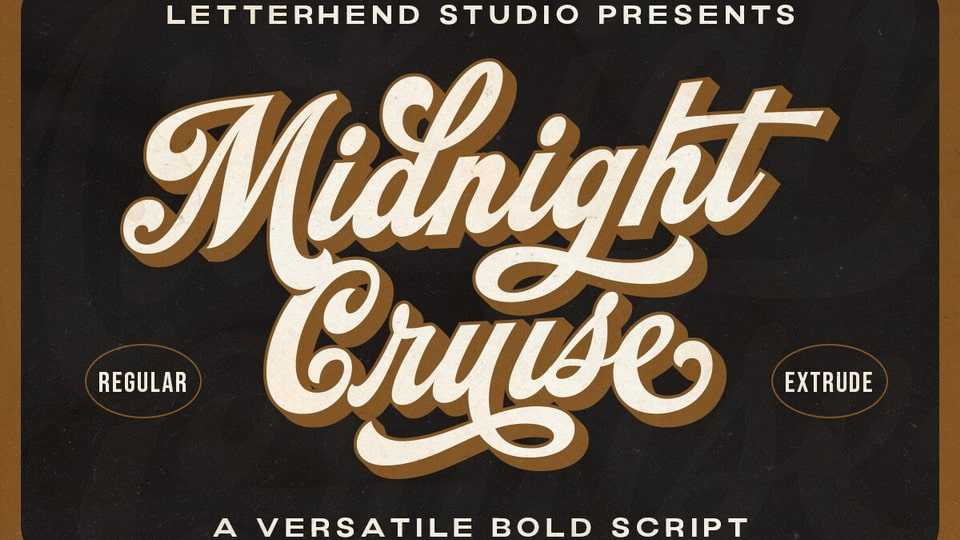
Download Midnight Cruise font, a standout bold script typeface with a touch of classic looks. This font perfectly made to be applied especially in logo, headline, signage and the other various informal forms such as labels, posters, prints or any type of advertising purpose.